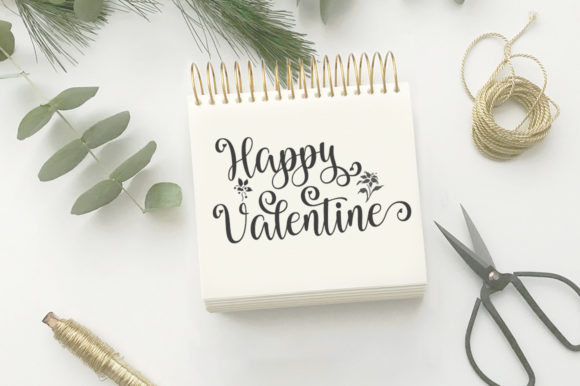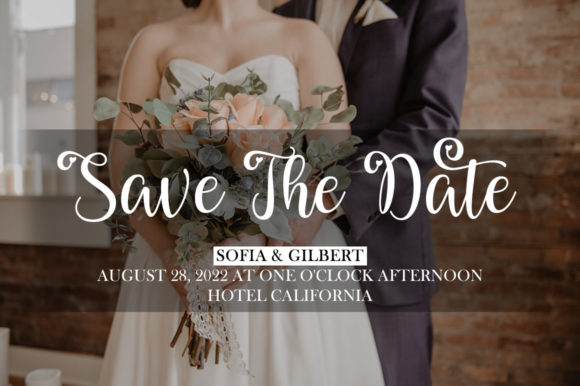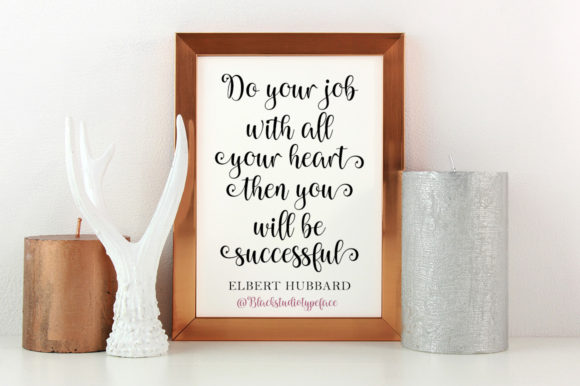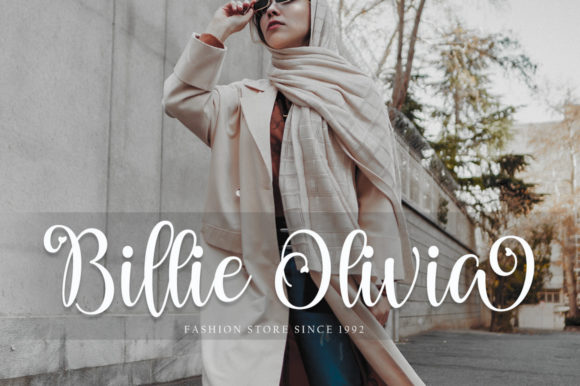
About Mishela Font
Mishela is a handwritten font that is both well-balanced and subtle. It has been crafted with great care to yield maximum results. This font can add a touch of elegance and class to any of your design projects.
The balance of Mishela gives it a harmonious and proportionate feel. This makes it perfect for projects that require a touch of symmetry and balance. Whether you’re designing a logo, a poster, or a website, Mishela can add that extra touch of balance that makes your designs stand out.
One of the standout features of Mishela is its subtlety. This gives it a sophisticated and understated feel, making it perfect for projects that require a touch of elegance and sophistication. Whether you’re designing a wedding invitation, a logo, or a social media post, Mishela can add that extra touch of subtlety that makes your designs stand out.
Mishela is not just a font; it’s a tool that can help you express your creativity. Its elegant and classy look can bring a sense of elegance and class to your designs, making them more appealing and engaging. Whether you’re designing for a client or for your own personal projects, Mishela can help you convey the right emotion and message.
Moreover, Mishela is PUA encoded, which means you can easily access all of the amazing glyphs and swashes that come with the font. These extra characters can add a whole new level of depth and creativity to your designs, allowing you to create truly unique and personalized projects.
In conclusion, Mishela is a well-balanced, subtle, elegant, and classy handwritten font that is perfect for a wide range of projects. Its PUA encoding allows you to access a wealth of extra characters, adding a new level of creativity to your designs. So, whether you’re a professional designer or a hobbyist, Mishela is a font worth considering for your next project. Why not give Mishela a try and see how it can enhance your designs? You might be surprised at the difference it can make!